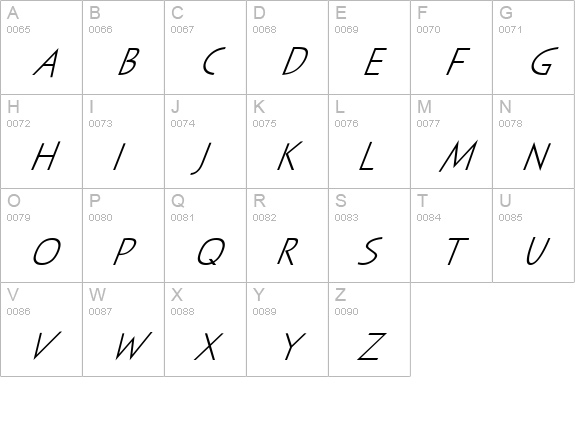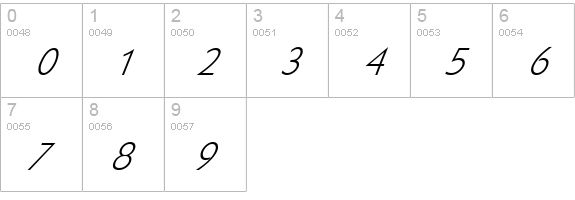
SayerSpiritual MN Italic Font Details
SayerSpiritual MN Italic is a distinctive, italic variant in the SayerSpiritual typeface family \xE2\x80\x94 well suited to design and typography projects.
Introducing SayerSpiritual MN Italic font, a graceful and elegant typeface that exudes a sense of spirituality and serenity. Its delicate curves and flowing lines create a harmonious balance that is perfect for adding a touch of sophistication to your design projects. This exquisite font is not only visually appealing but also versatile, making it suitable for a wide range of applications such as invitations, branding, packaging, and more. Whether you're working on a wedding invitation or a spiritual book cover, SayerSpiritual MN Italic font will surely elevate your design to a whole new level. Best of all, this captivating font is available for free download at FontsMarket.com. So, why wait? Add SayerSpiritual MN Italic font to your collection today and let its beauty inspire your next creative endeavor.